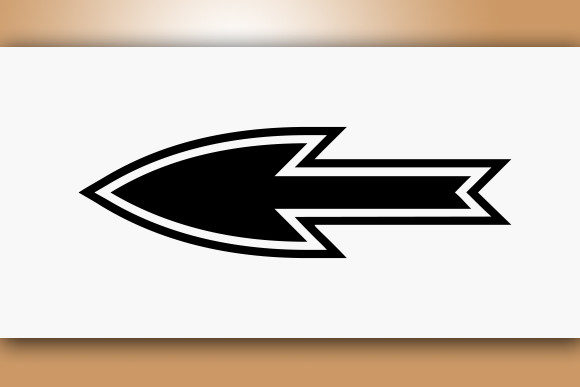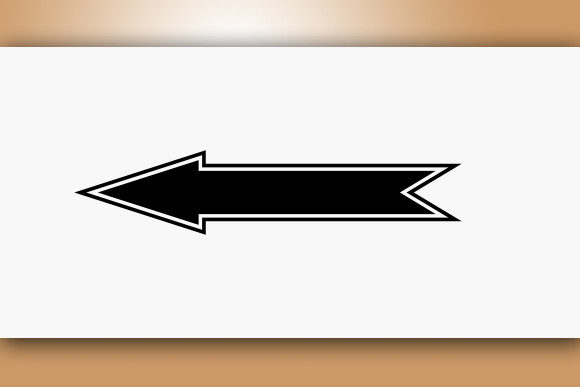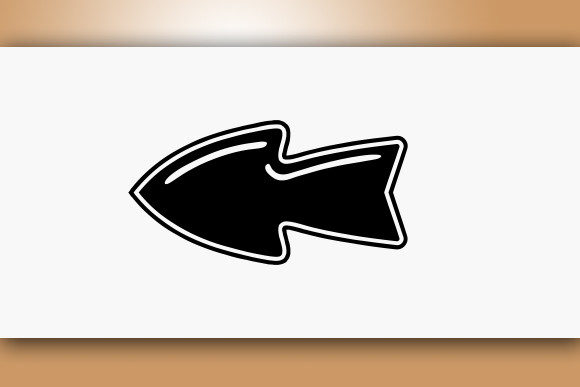
About VN Arrows Font
VN Arrows is a fantastic dingbats font that offers a wide range of arrows to enhance your creative projects. With its diverse collection of arrow glyphs, this font provides you with a versatile set of decorative elements to add flair and direction to your designs.
Whether you’re working on graphic design projects, presentations, signage, or even personal crafts, VN Arrows has the arrows you need to make a visual impact. From simple and sleek arrows to more elaborate and ornamental designs, this font allows you to choose the perfect arrow style to suit your project’s aesthetic.
By incorporating VN Arrows into your designs, you can effectively convey direction, movement, or emphasis. Arrows are powerful visual cues that guide the viewer’s attention and add a sense of dynamism to your compositions. Whether you’re highlighting important information, creating flowcharts, or designing navigation elements, VN Arrows provides the necessary graphical elements to elevate your design.
The versatility of VN Arrows extends beyond digital media. You can utilize this font for print materials such as posters, flyers, brochures, and packaging to create visually engaging layouts. Additionally, it can be applied to personal crafts, scrapbooking, or DIY projects to add an artistic touch and enhance the overall design.
With VN Arrows, you have the freedom to experiment and combine different arrow styles to create unique compositions. Whether you’re aiming for a minimalist look or a more intricate design, this font gives you the tools to customize your arrows and achieve the desired visual impact.
In summary, VN Arrows is an exceptional dingbats font that offers a diverse selection of arrows for your creative projects. Whether you’re working on digital or print designs, this font allows you to add decorative and functional arrows to enhance your compositions. Let VN Arrows guide your designs and bring visual interest to your projects!